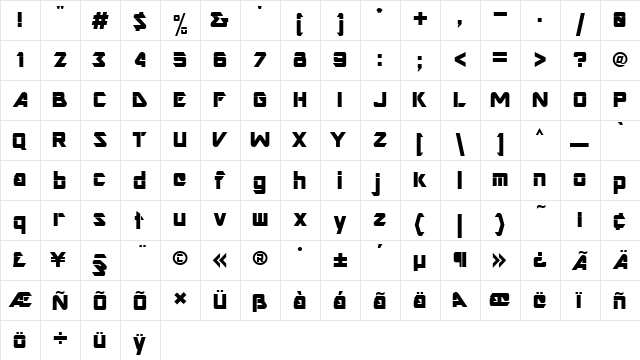
Gravicon Display
Design Context for Gravicon Typeface
Gravicon brings ornamental detail and strong personality to headlines and identities, where visual impact matters more than quiet functionality.
Font Pairing: Pair with a clean neutral sans-serif for body copy to let Gravicon's character lead without overwhelming the composition.
Pro Tip: Use Gravicon exclusively at display sizes — it was designed to be seen, not read at length. Let a neutral companion handle body copy.